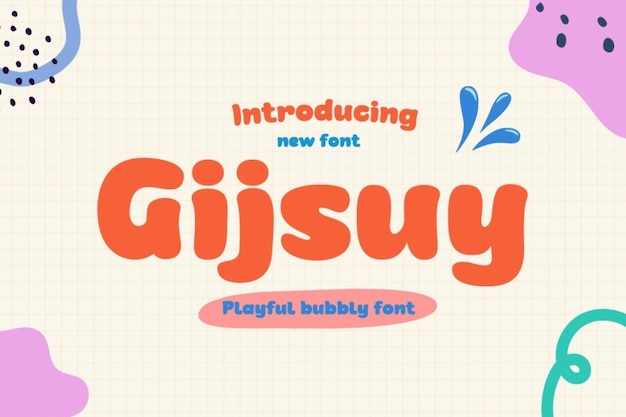
The Gijsuy font is a bouncy typeface that's sure to produce the catchy and fun design. Its curvy lines and soft edges make this font an ideal choice for creative children's materials and marketing projects. Download and enjoy this font now!
Gijsuy (400)